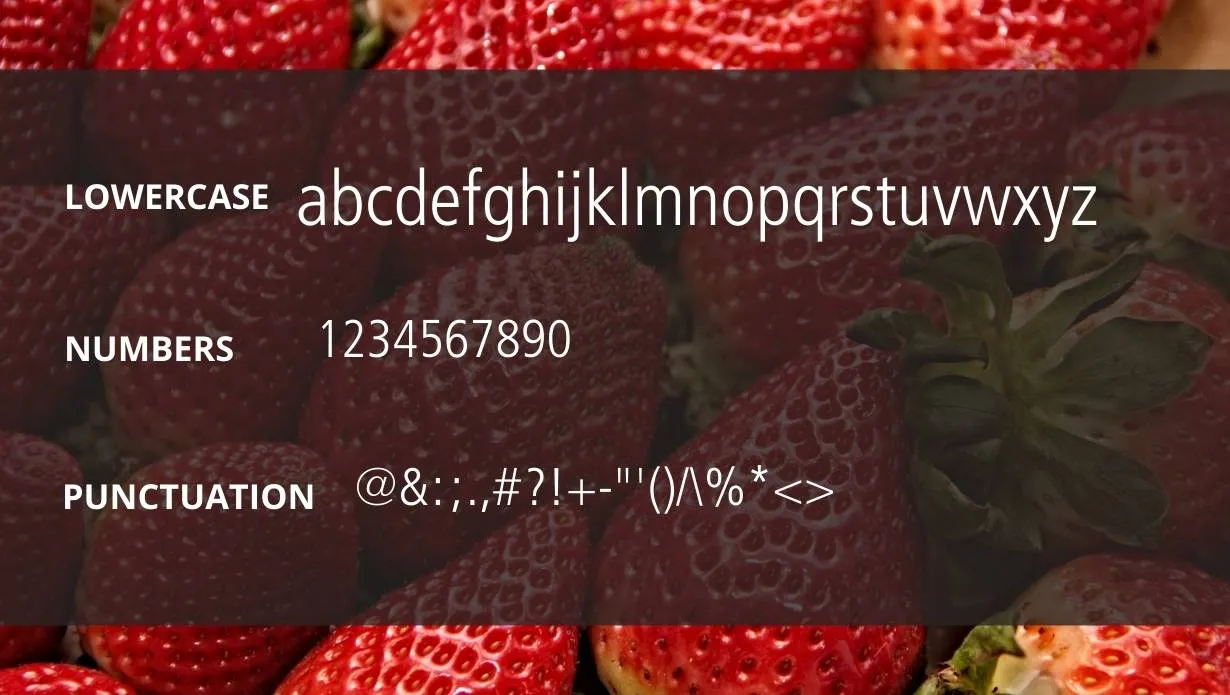
Frutiger Font is a typeface designed by Adrian Frutiger in the early 1970s. It was originally commissioned by the Charles de Gaulle Airport in Paris and has been used on signage and branding all over the world.
This Font is available in a wide range of weights and styles, so you can find the perfect version for your project.
| Name | Frutiger Font |
| Designer | Adrian Frutiger |
| Style | Sans-serif |